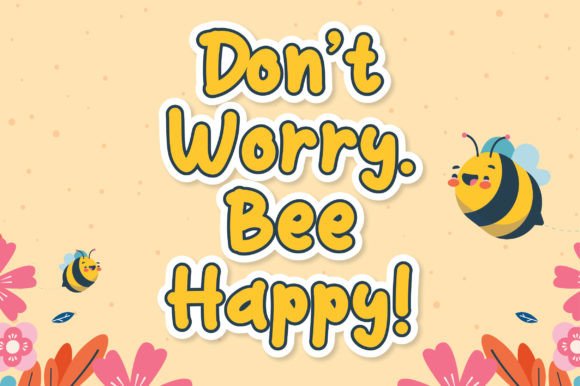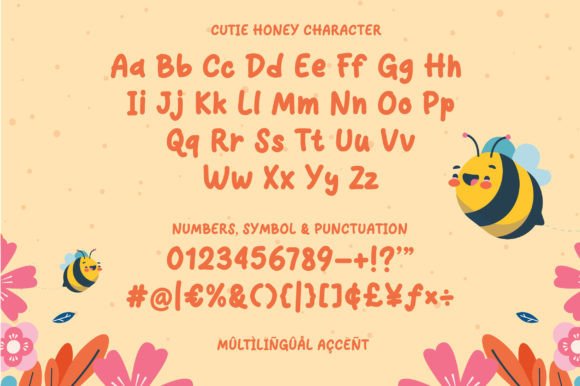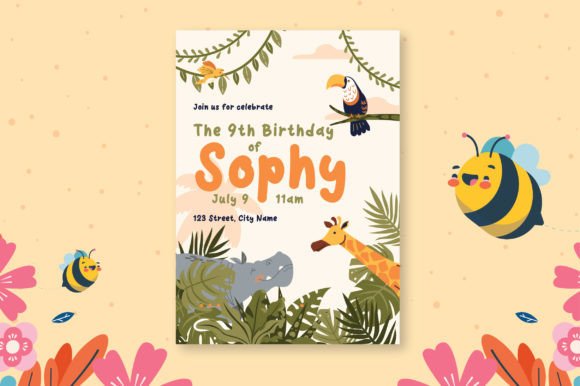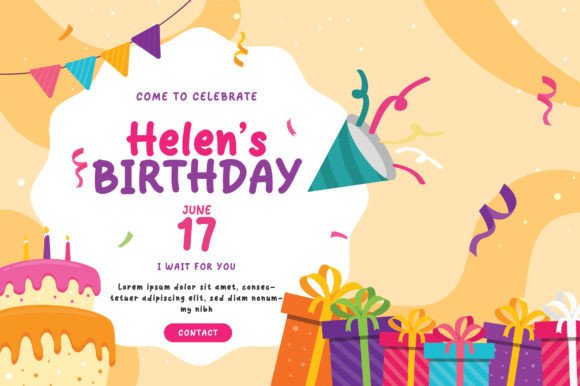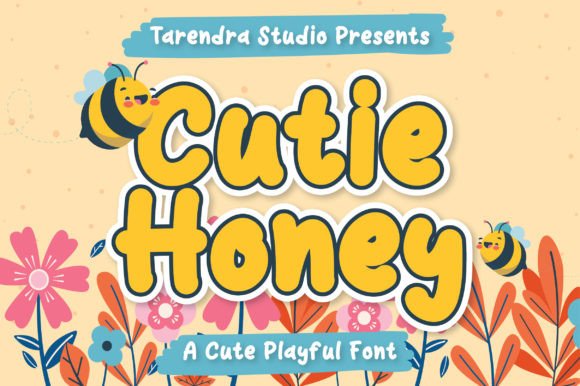
Introducing CutieHoney Font: The Ultimate Choice for Cute and Playful Designs
Are you looking for a font that can add a touch of cuteness and playfulness to your designs? Do you want to create something that stands out and inspires creativity, imagination, and endless fun? Look no further! We are excited to introduce CutieHoney, a cute rounded script display font that is sure to become your go-to choice for all your design needs.
What Makes CutieHoney Font So Special?
CutieHoney is a beautifully crafted font that is made with a very good level of aesthetics. Its rounded and smooth curves make it perfect for creating designs that are both visually appealing and engaging. The font is designed to be highly versatile, making it suitable for a wide range of applications, including book covers, posters, packaging, merchandise, logotypes, and much more.
Key Features of CutieHoney Font
- Cute and Playful Design: CutieHoney has a unique and adorable design that is sure to capture the attention of your audience.
- Rounded Script Display Font: The font has a smooth and rounded script style that gives it a friendly and approachable feel.
- Highly Versatile: CutieHoney can be used for a wide range of design projects, from book covers and posters to packaging and merchandise.
- Easily Readable: Despite its playful design, CutieHoney is highly legible, making it perfect for use in both digital and print designs.
How to Use CutieHoney Font in Your Designs
CutieHoney is an incredibly versatile font that can be used in a variety of design projects. Here are a few ideas to get you started:
- Book Covers: Use CutieHoney to create eye-catching book covers that will stand out on bookshelves and online.
- Posters and Flyers: Create bold and attention-grabbing posters and flyers that will grab the attention of your audience.
- Packaging Design: Add a touch of cuteness and playfulness to your product packaging with CutieHoney.
- Merchandise: Use CutieHoney to create fun and playful designs for merchandise such as t-shirts, mugs, and tote bags.
- Logotypes and Branding: Create a unique and memorable brand identity with CutieHoney.
Why Choose CutieHoney Font?
There are many fonts available that claim to be cute and playful, but CutieHoney stands out from the rest. Here are a few reasons why:
- Unique Design: CutieHoney has a unique and adorable design that is sure to capture the attention of your audience.
- High-Quality Aesthetics: The font is made with a very good level of aesthetics, making it perfect for use in high-end designs.
| Font Name | Cutiehoney Font |
| Author | Tarendra Studio |